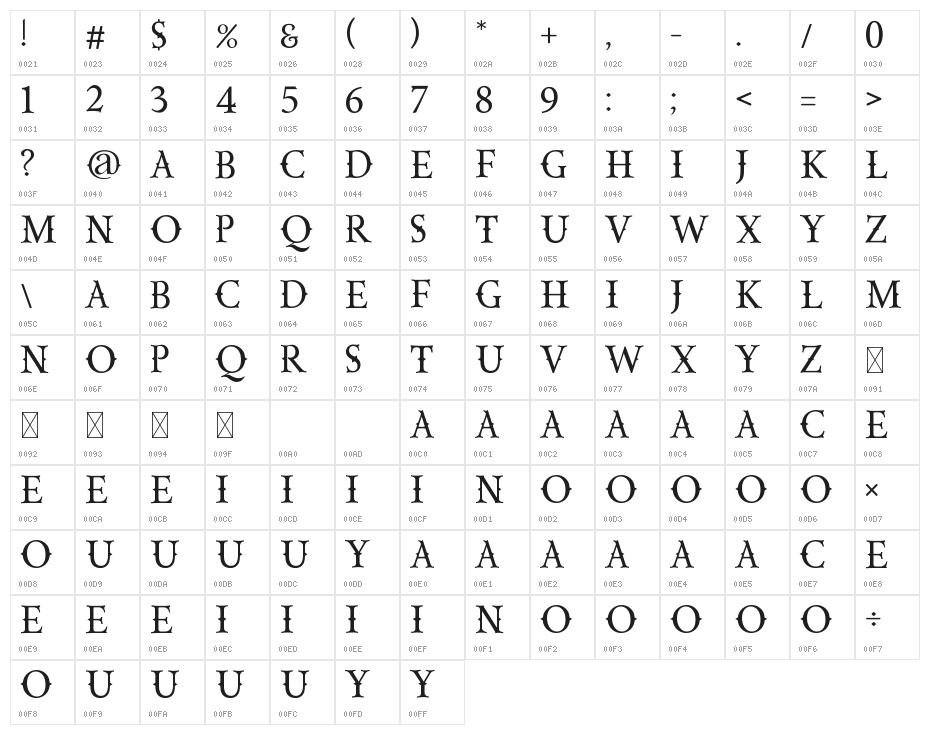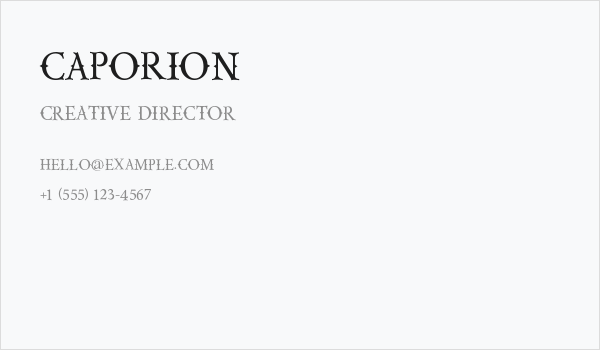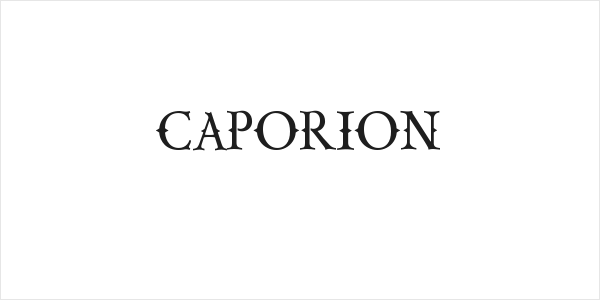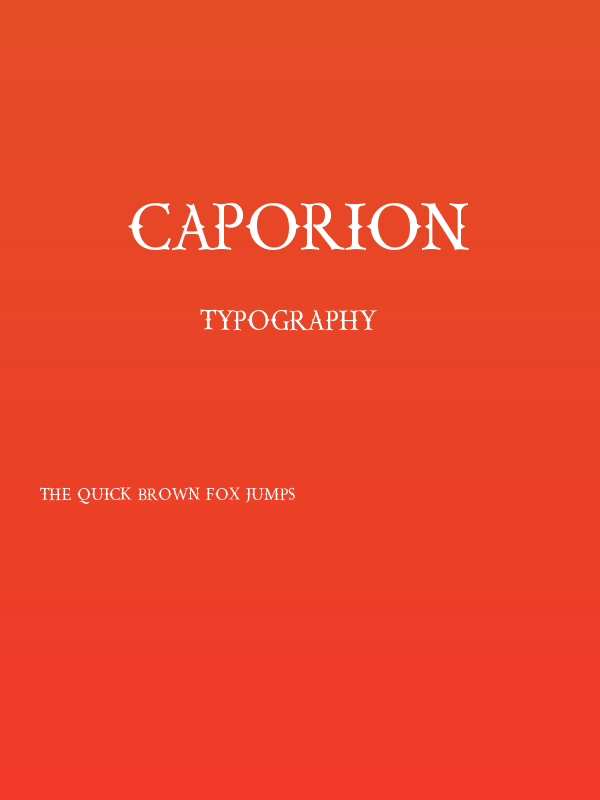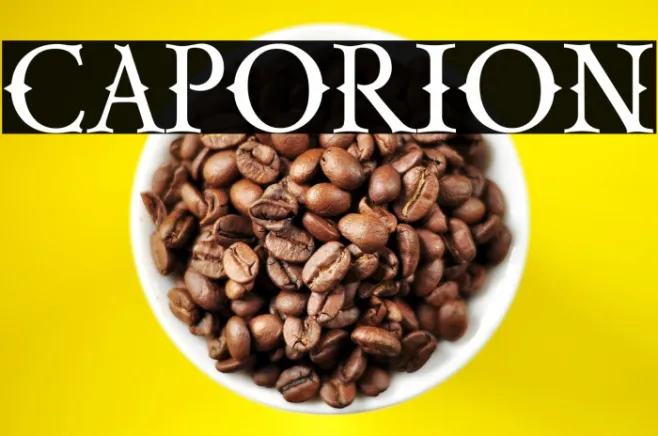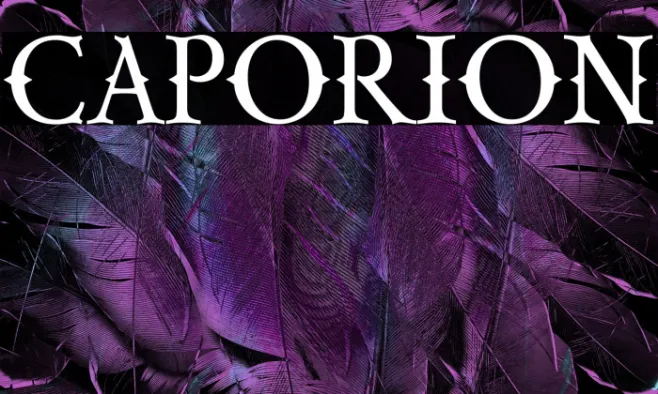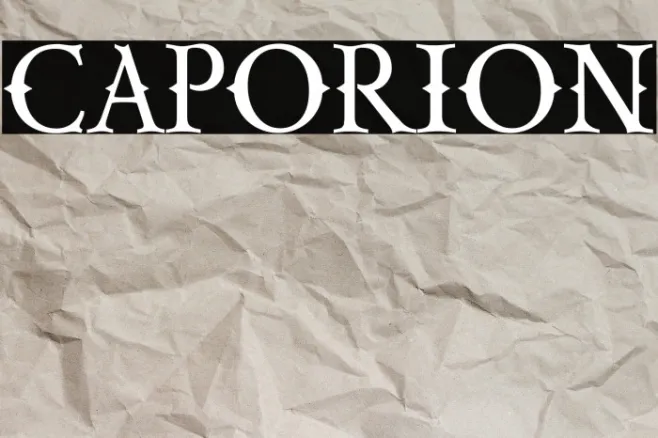
CAPORION Font
CAPORION Description
This font features a distinctive and bold serif style with sharp, angular edges and a strong presence. The uppercase letters are particularly striking, with a unique cut-out design that adds a modern twist to the classic serif form. The numerals are equally bold, maintaining the same angular and sharp aesthetic. Special characters are well-integrated, providing a cohesive look across all glyphs. The font's overall appearance is both elegant and assertive, making it suitable for a variety of design applications where a strong visual impact is desired.